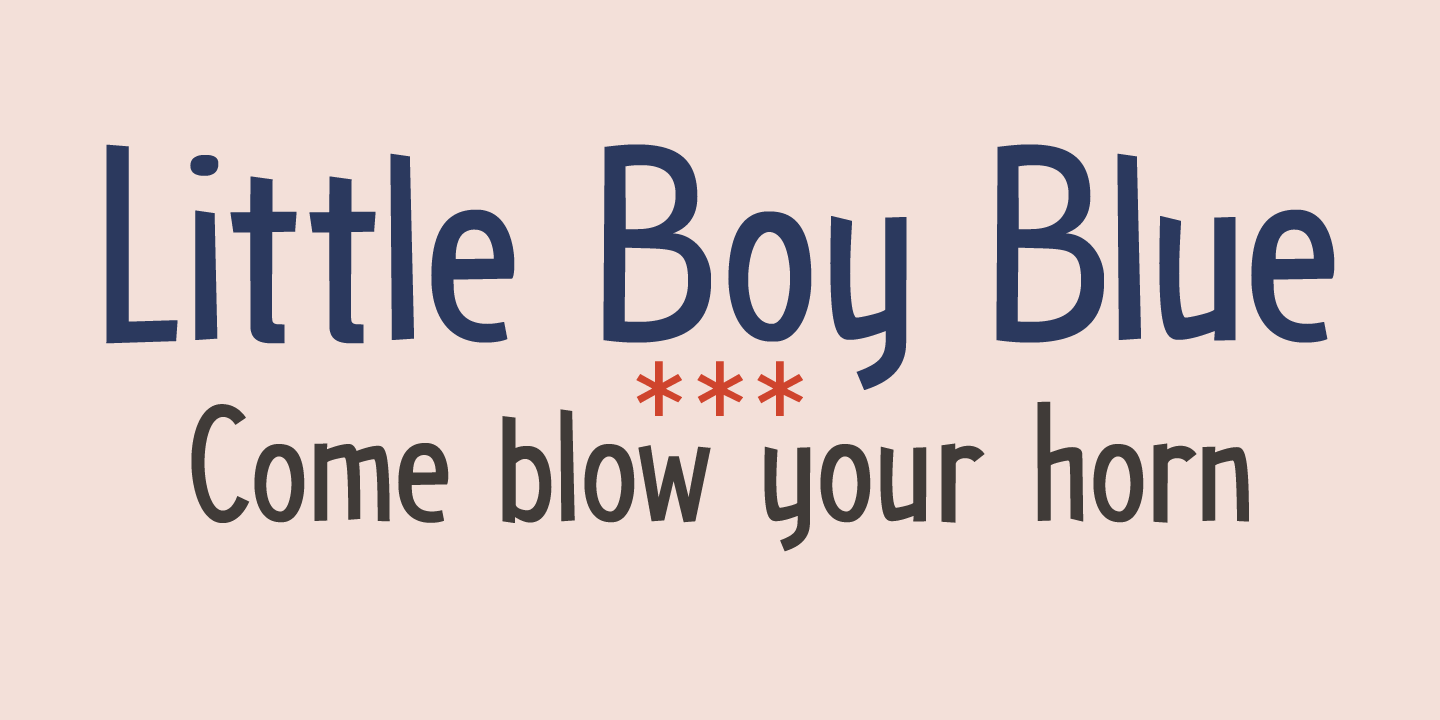
Little Boy Blue Font is perfect for children's nursery branding, baby product packaging, gentle bedtime story books, soft toy labeling, peaceful lullaby designs, tender childhood memories, innocent play center signage, and sweet designs that require gentle childhood innocence and soothing comfort.
This font is exciting because it captures the tender sweetness of childhood through its soft, comforting letterforms that evoke the gentle world of nursery rhymes and peaceful childhood dreams. The nurturing character design embodies the innocence and wonder of early childhood, making it perfect for brands seeking to create safe, loving environments that celebrate the precious nature of childhood.
Little Boy Blue Font belongs to the gentle children's font family, featuring soft styling and nursery elements that enhance its appeal for baby and children-focused design applications.
Whether you're creating children's product branding or gentle nursery graphics, Little Boy Blue Font Free Download delivers maximum tenderness and childhood charm. This typeface perfectly balances innocent playfulness with soothing comfort, making it essential for designers working on projects that celebrate the gentle aspects of childhood and family life. The font's sweet presence works beautifully in children's books, baby communications, and family materials, providing excellent readability while maintaining its gentle character that transforms any design with childhood innocence and creates memorable tender experiences across all media platforms and children's care communications.